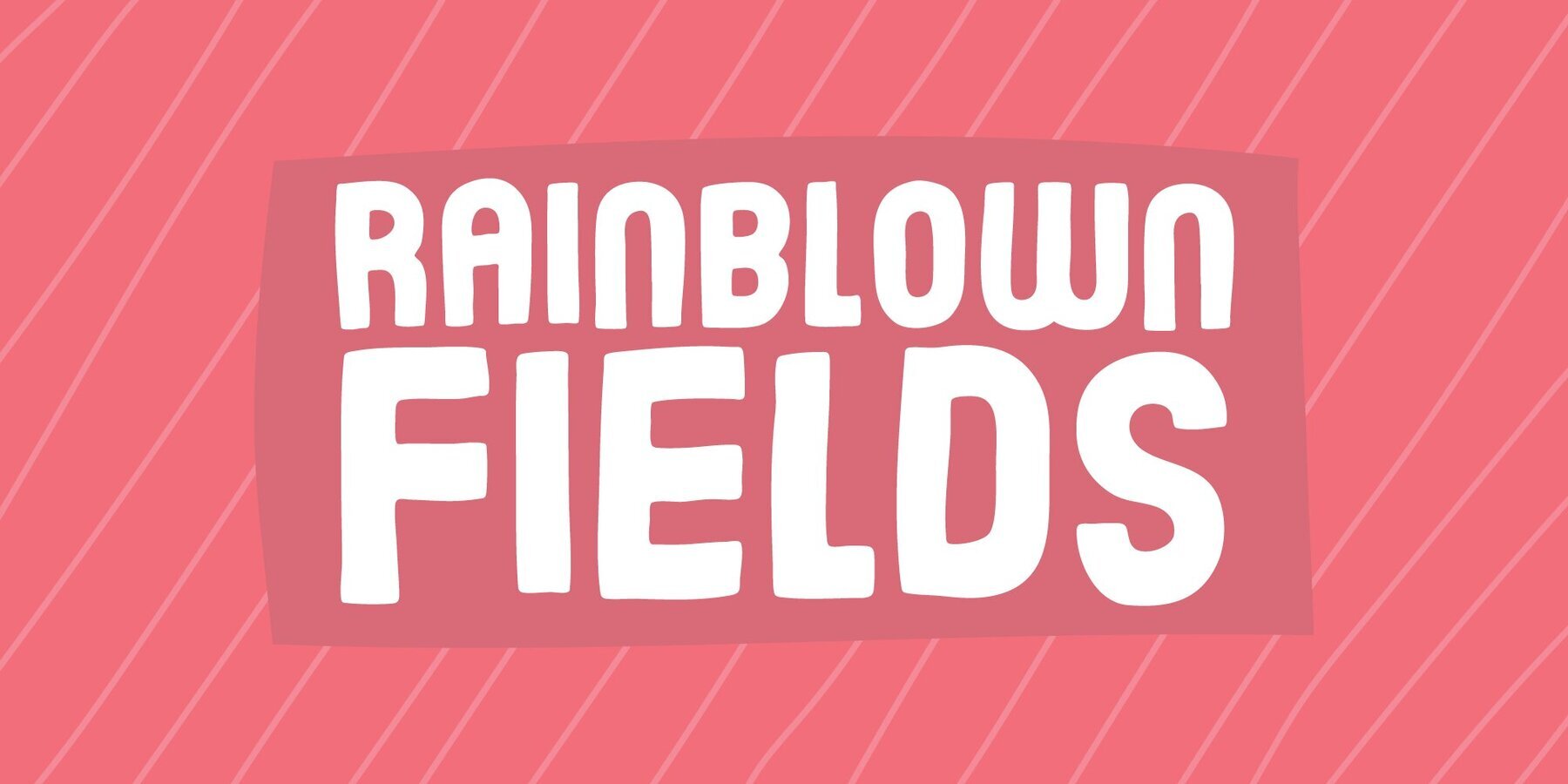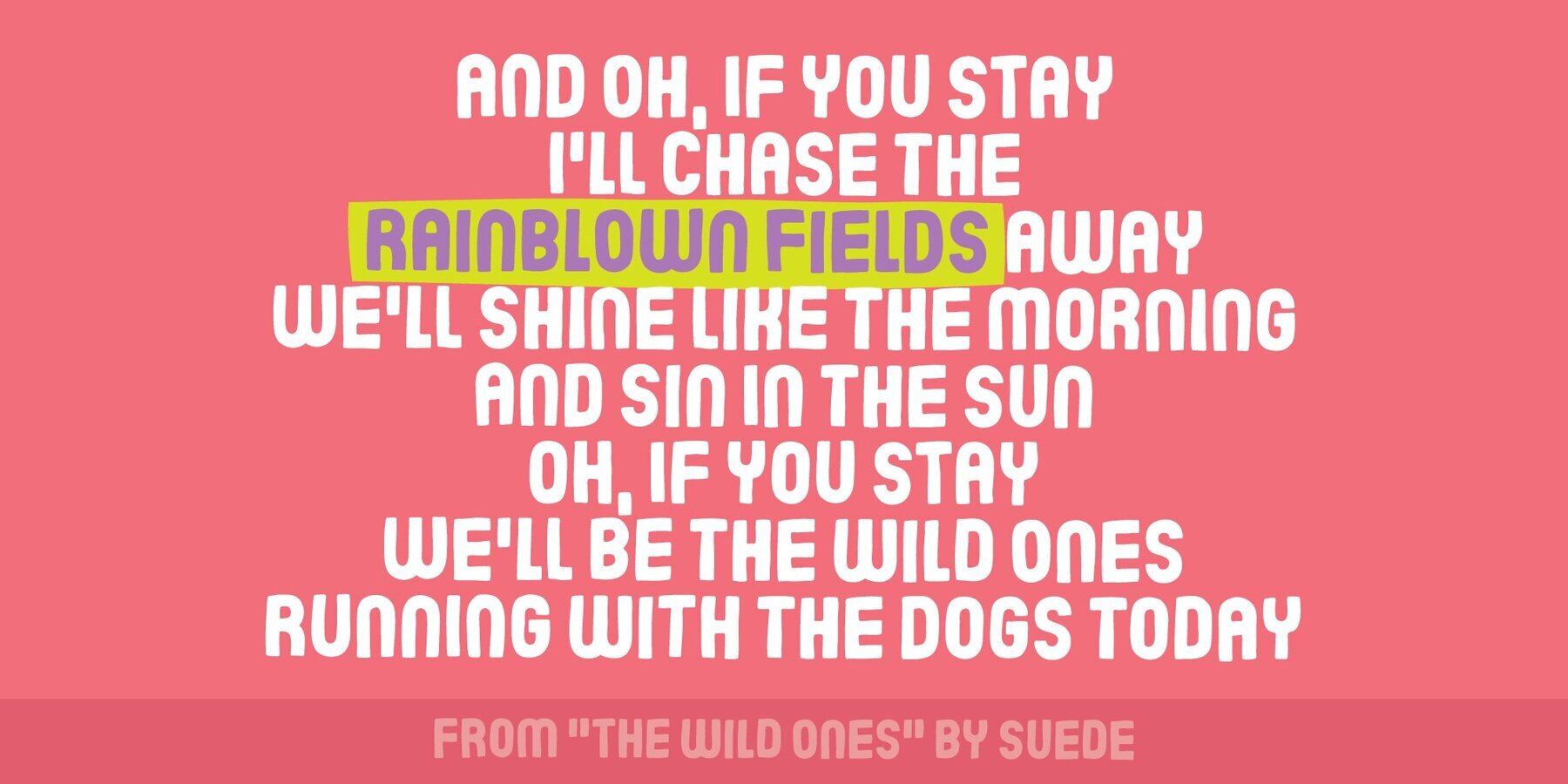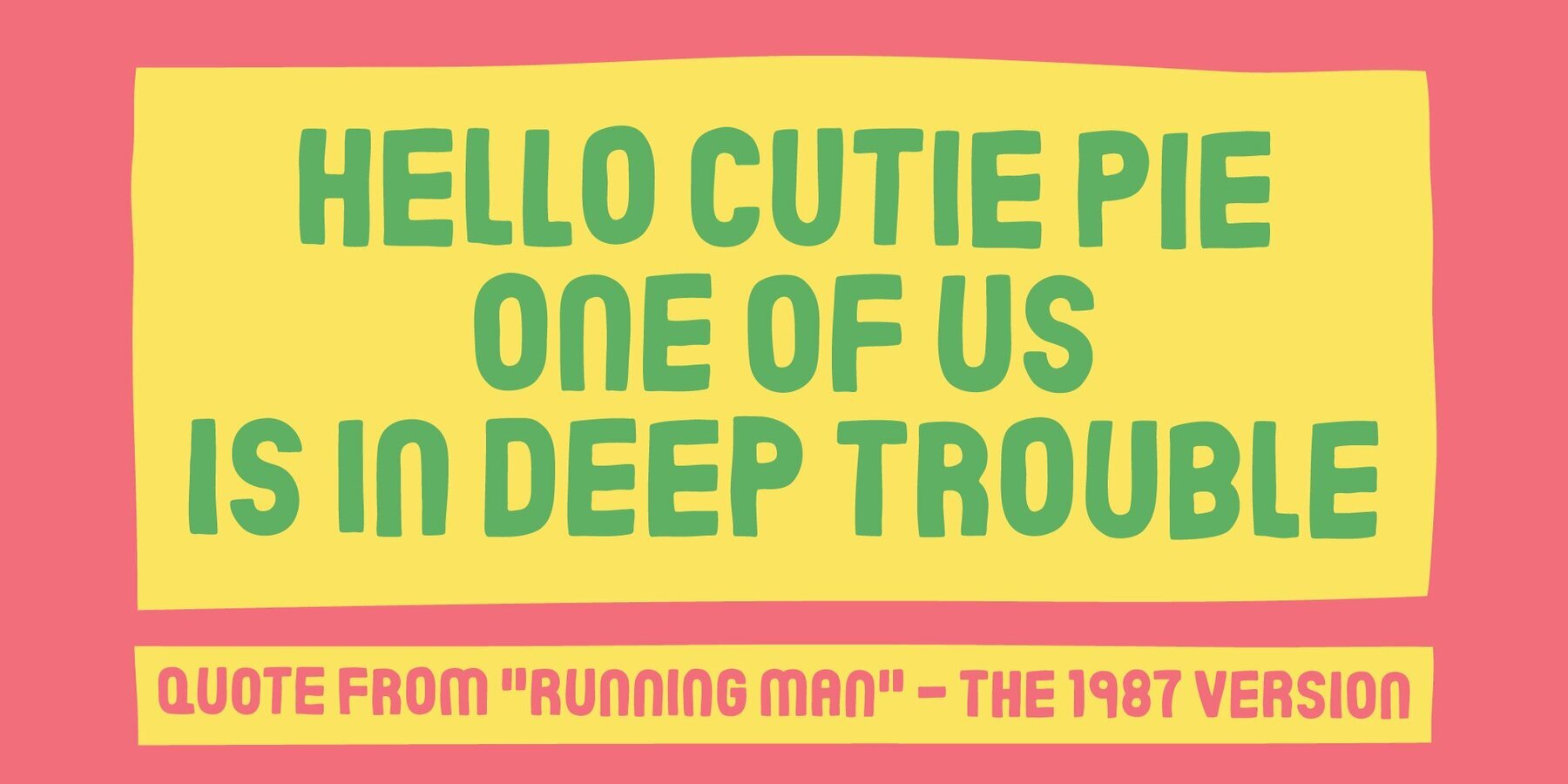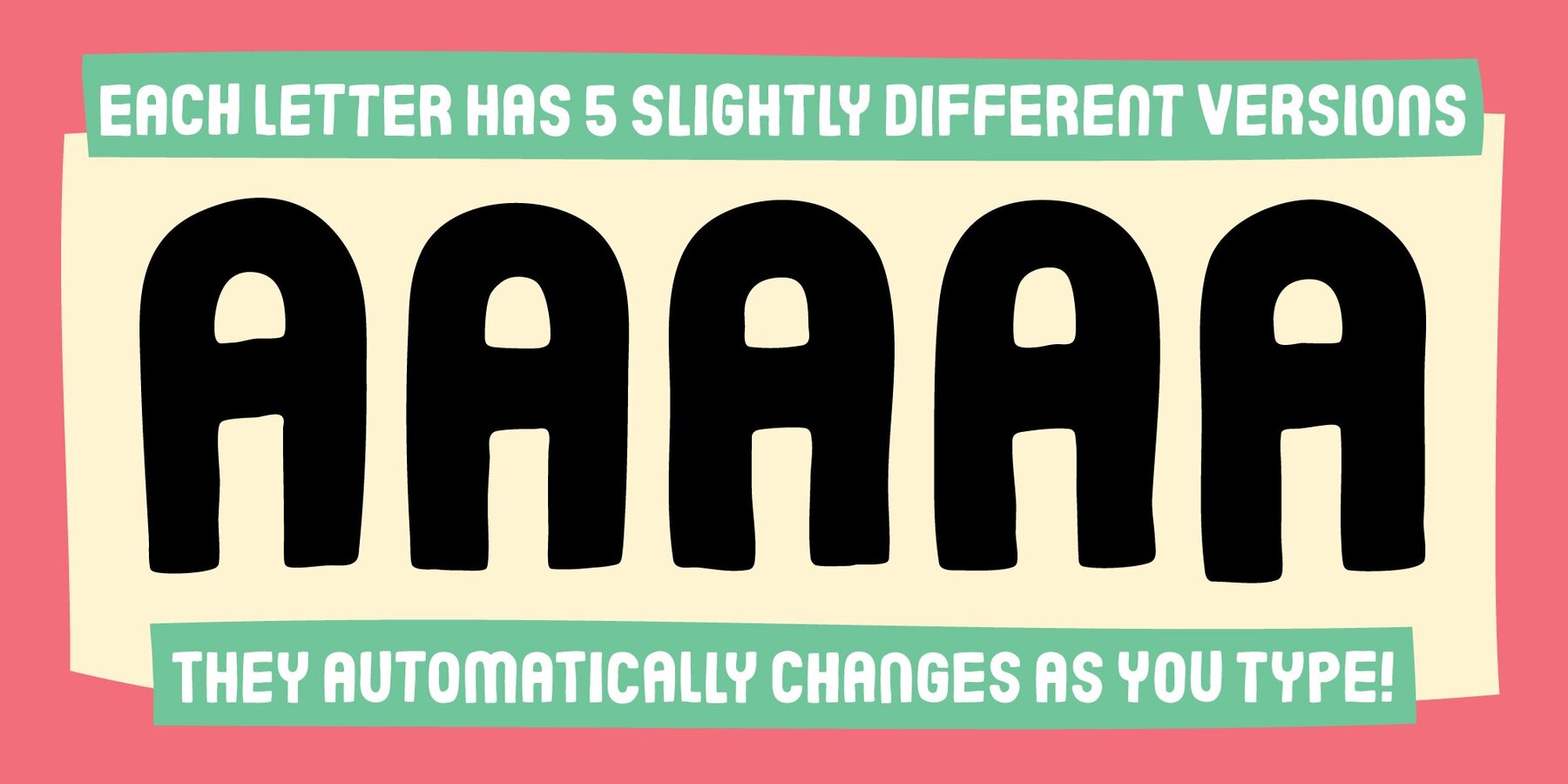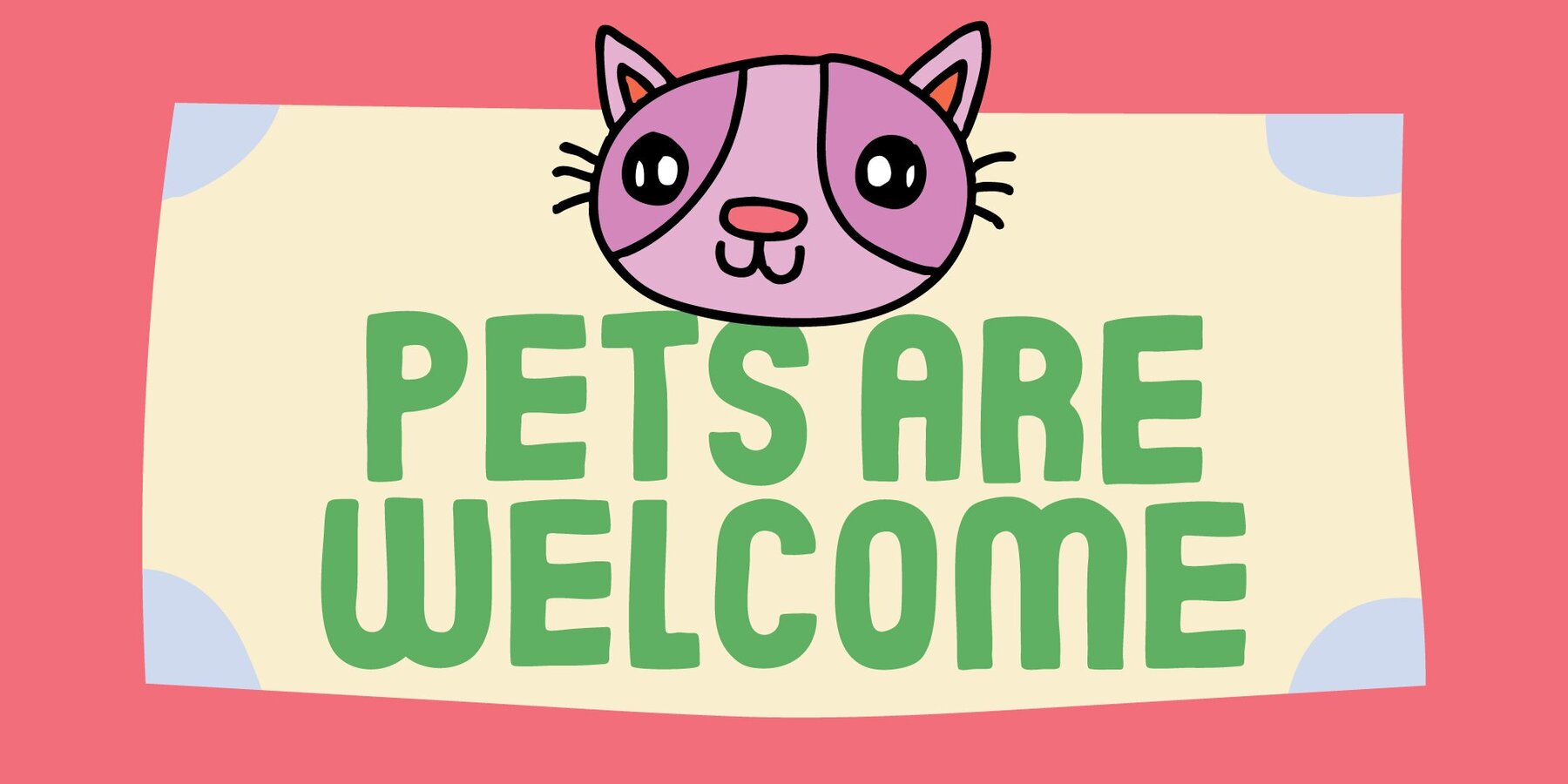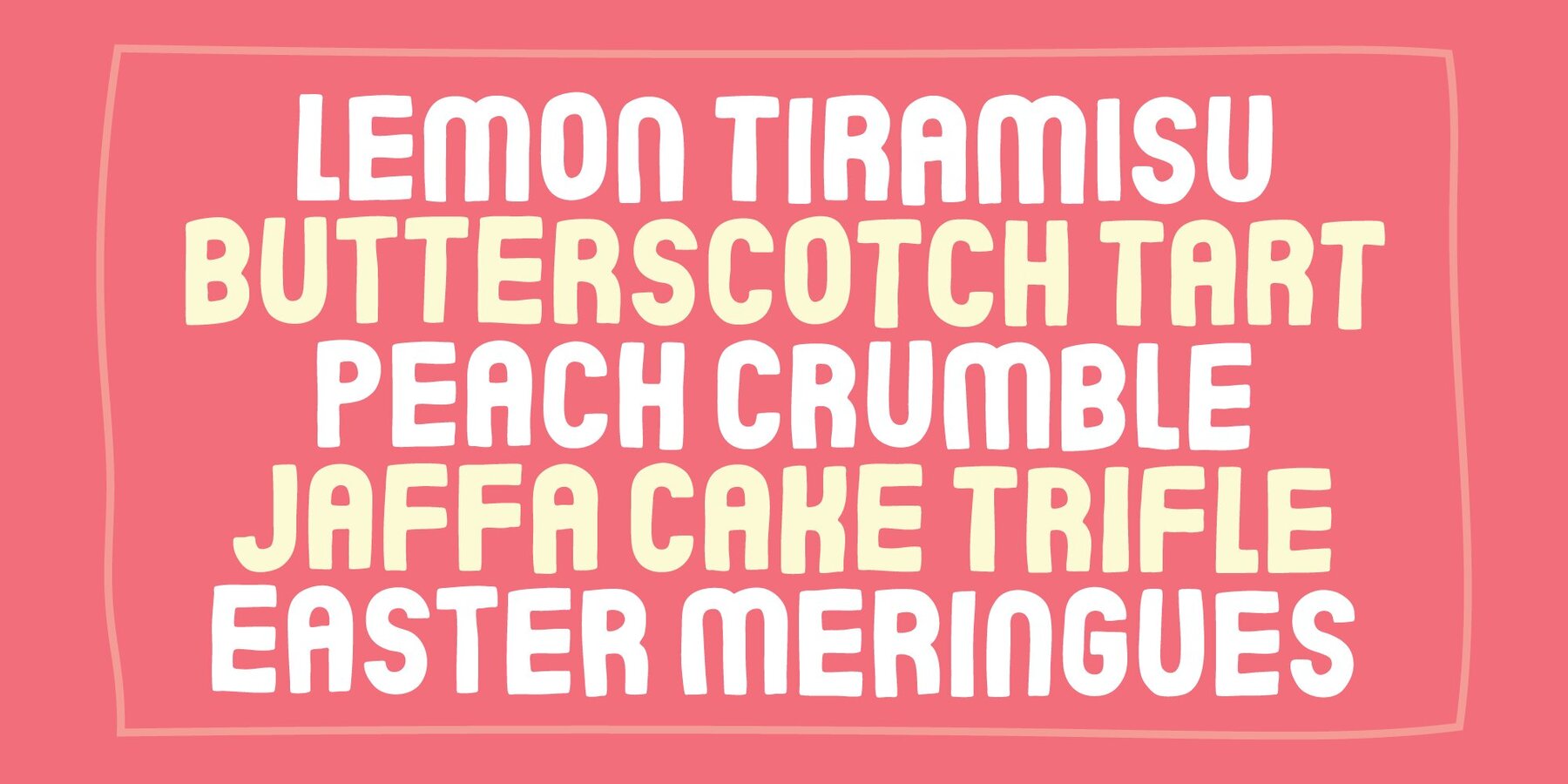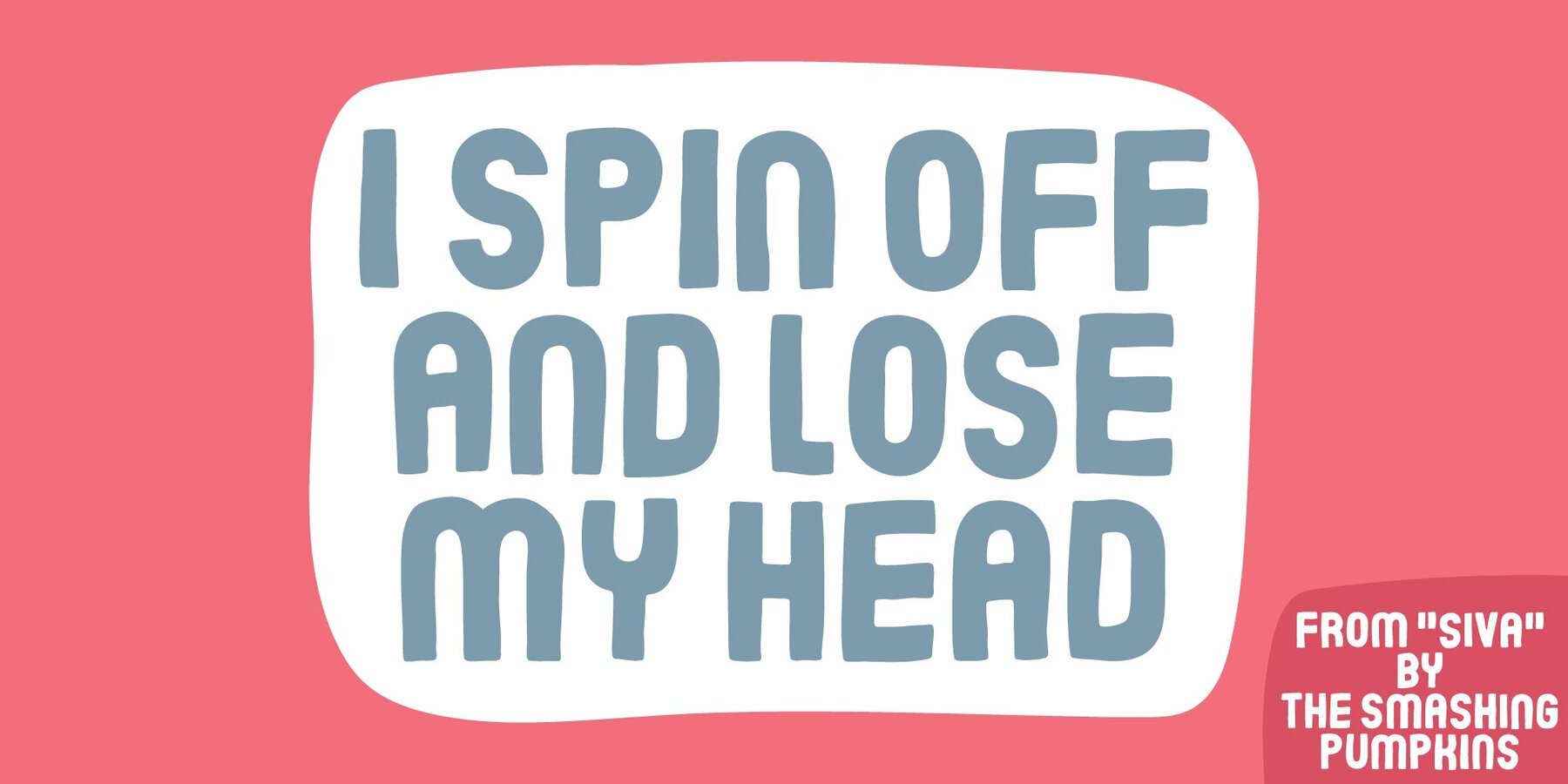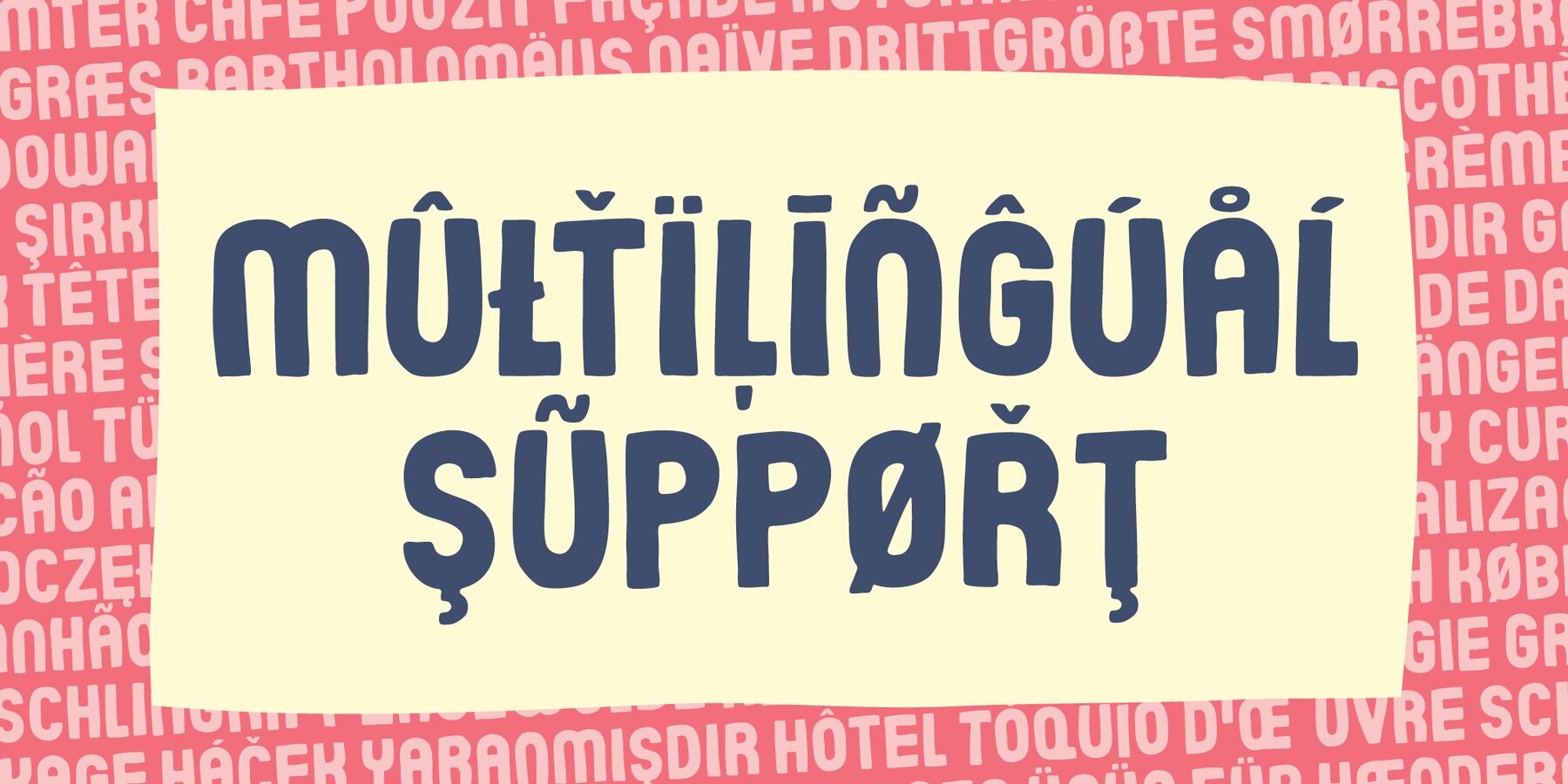
Rainblown Fields Font
Rainblown Fields Regular
Rainblown Fields Italic
Rainblown Fields draws inspiration from a blend of graffiti, comic art, and the rhythmic energy of a favorite Suede track. This display font features a gridded construction, giving each letter a structured and cohesive appearance. The font comes alive through subtle variations—five unique versions of each character ensure that text feels dynamic, not static. While the forms may look uniform, small individual differences offer a lively, organic touch to each word. Ideal for posters, comics, or anywhere you seek a vibrant, playful atmosphere with professional versatility. This font brings individuality and a sense of creative energy to any design project.Rainblown Fields Typeface